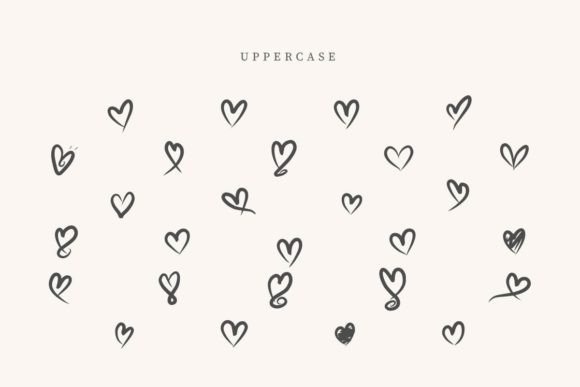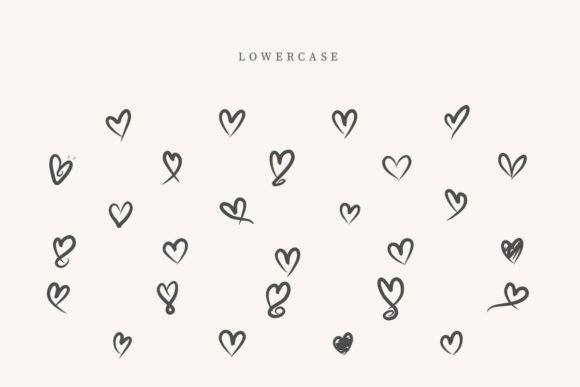
Introducing Heart Easter Font: The Perfect Addition to Your Crafting Arsenal
Are you a designer, crafter, or DIY enthusiast looking for a unique and beautiful font to add a touch of love and whimsy to your projects? Look no further than Heart Easter Font, a stunning love line illustration dingbat font that’s perfect for a wide range of crafting needs.
What is Heart Easter Font?
Heart Easter Font is a carefully crafted dingbat font that features intricate line illustrations of hearts, perfect for adding a romantic and playful touch to your designs. With its elegant and delicate style, this font is ideal for creating beautiful and eye-catching projects that showcase your creativity and attention to detail.
What Can I Use Heart Easter Font For?
The versatility of Heart Easter Font makes it suitable for a wide range of crafting applications, including:
• T-shirts and apparel: Add a touch of love and personality to your custom t-shirts, hoodies, and other apparel with this beautiful font.
• Logos and branding: Create a unique and memorable logo for your business or brand with Heart Easter Font’s elegant and sophisticated style.
• Decorations and home decor: Use this font to create beautiful wall art, signs, and other decorative items for your home or office.
• Clip art and stickers: Add a touch of whimsy and fun to your clip art and stickers with Heart Easter Font’s intricate line illustrations.
• Planners and journals: Create beautiful and functional planners and journals with this font’s elegant and easy-to-read style.
• Scrapbooking: Add a romantic and playful touch to your scrapbook pages with Heart Easter Font’s beautiful heart illustrations.
• Invitations and cards: Create stunning invitations and cards for special occasions like birthdays, weddings, and anniversaries.
Why Choose Heart Easter Font?
With so many fonts available, why choose Heart Easter Font? Here are just a few reasons why this font stands out:
• Unique and eye-catching: Heart Easter Font’s intricate line illustrations of hearts are sure to grab attention and add a touch of personality to your designs.
• Versatile: This font is suitable for a wide range of crafting applications, from apparel and logos to decorations and scrapbooking.
• Elegant and sophisticated: Heart Easter Font’s elegant and delicate style makes it perfect for creating beautiful and sophisticated designs.
Tips and Inspiration for Using Heart Easter Font
Here are a few tips and inspiration ideas for using Heart Easter Font:
• Mix and match: Combine Heart Easter Font with other fonts and design elements to create unique and eye-catching designs.
• Experiment with colors: Try out different colors and color combinations to add depth and interest to your designs.
• Add illustrations: Use Heart Easter Font’s heart illustrations as a starting point and add your own illustrations and design elements to create a unique look.
• Keep it simple: Don’t be afraid to keep your design simple and elegant, using Heart Easter Font as the focal point.
Font Name Heart Easter Font
Author CraftedType Studio
Heart Easter Font is a beautiful and versatile dingbat font that’s perfect for designers, crafters, and DIY enthusiasts looking to add a touch of love and whimsy to their projects. With its elegant and delicate style, this font is suitable for a wide range of crafting applications, from apparel and logos to decorations and scrapbooking. Whether you’re looking to create beautiful and eye-catching designs or simply add a touch of personality to your projects, Heart Easter Font is the perfect addition to your crafting arsenal.